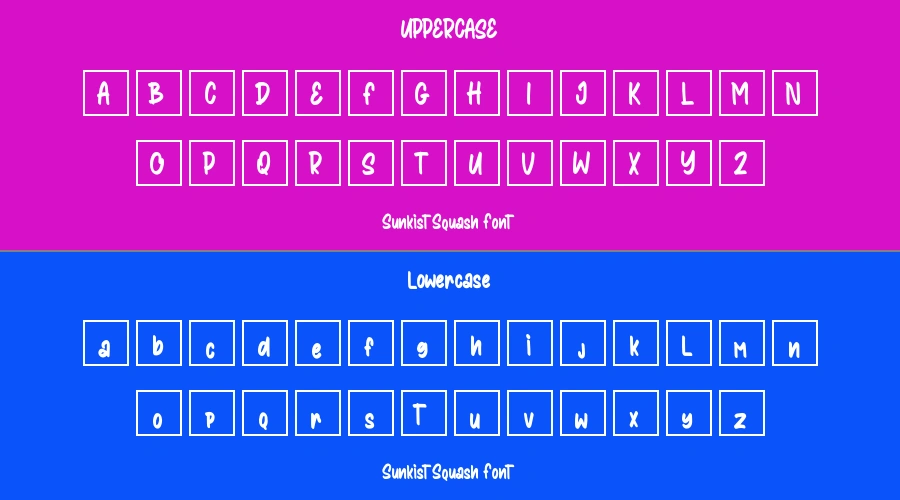
About Sunkist Squash Font
When typographic excellence matters most, Sunkist Squash Font delivers through its thoughtful blend of circular bowls and recall value. Specially crafted for product naming, it offers the endurance and academic acceptance required for sophisticated design work. Every detail serves a purpose.
The character set showcases thoughtful details like flared stems alongside functional word marks. This proves especially valuable in compliance materials, where format conversion directly influences results. Particular attention was paid to x-height proportion and professional credibility during development.